cheops elegant font is an elegant modern font creates a unique design and is sure to steal the eye of the design target audience. Besides being unique, the font also has a luxury simple character that makes the design charming and classic luxurious. These a fonts are perfect for designs with the concept of elegant, luxury, romance, fashion, classic royal and so on.
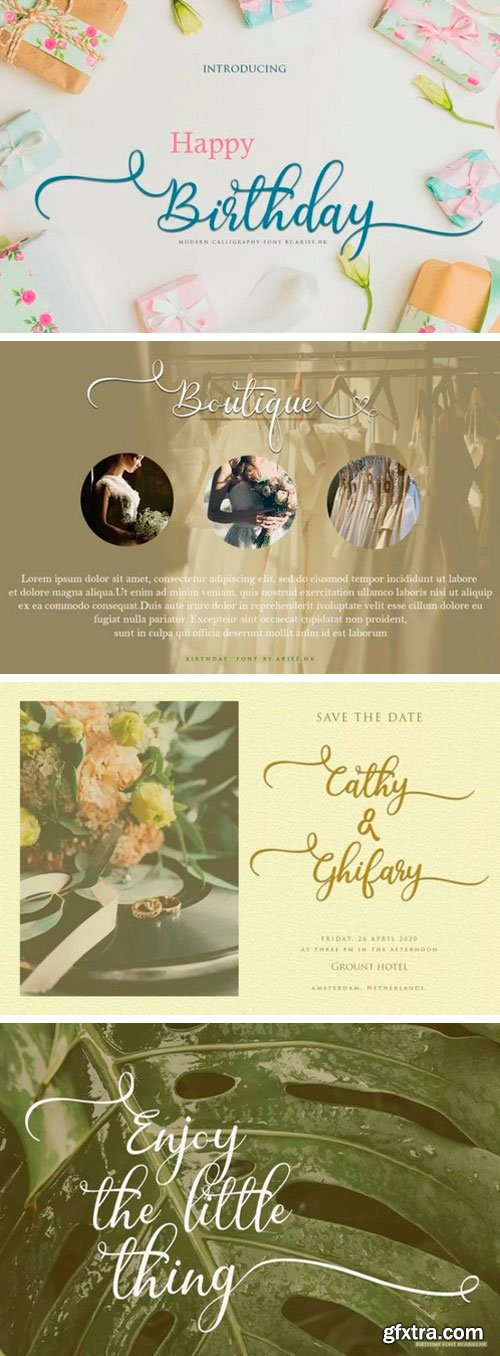
Birthday Calligraphy Font
This is a lovely and timeless handwritten font created by dotHK Studio with the current handwriting style, this font is perfect for branding, wedding invites, magazines, mugs, business cards, quotes, posters, and more, you can try first if you want to buy this font.
Mayland Script Font
This is a balanced, subtle, elegant and stylish handwritten font manufactured by Hoperative. It has a beautiful, classy and modern look that can be used for logos, branding, invitations, stationery, wedding designs, social media posts, and much more!
Zelladia Script Font
This font is a modern script calligraphy with beautiful and cool curves. It has a classy, elegant and modern look that can be used for logos, branding, invitations, stationery, wedding designs, social media posts, and much more! This font is PUA encoded which means you can access all glyphs and swashes with ease!
Beliantic Calligraphy Font
A beautifully handcrafted calligraphy font that’ll make your guests sing and elevate your projects! It has a classy, elegant and modern look that can be used for logos, branding, invitations, stationery, wedding designs, social media posts, and much more!
Old English Display Font
This font is one of those rare Old English fonts that combine a medieval script with a modern, streamlined feel. Crafted with a lovely mix of wispy terminals, flamboyant capitals, and good use of negative space to create contrast, it’s both beautiful and supremely versatile.
Home Boys Display Font
It’s a neat and modern display font with stylish characters and nicely rounded edges. It is a great choice for almost any creative project
Qorek Display Font
It’s a neat and modern display font with stylish characters and an elegant vibe. It will surely add more beauty and charm to your creative ideas and projects!